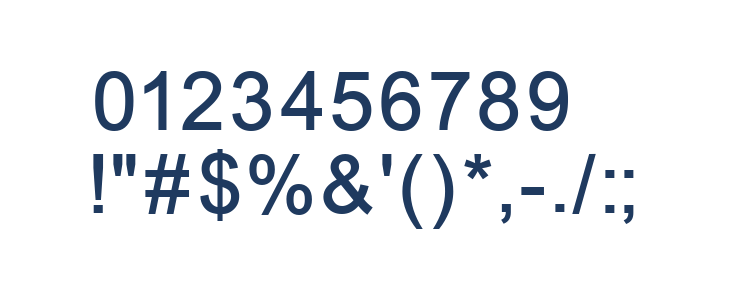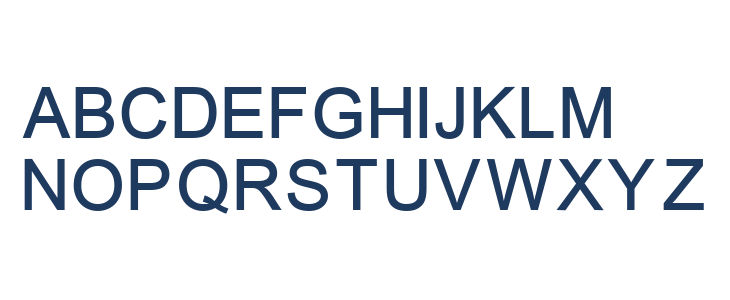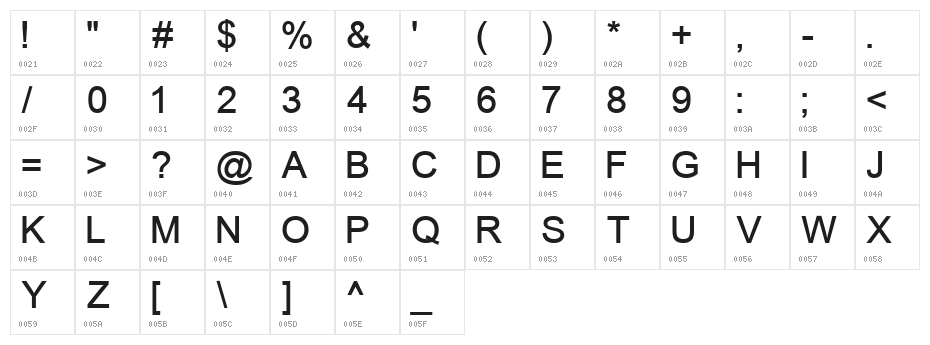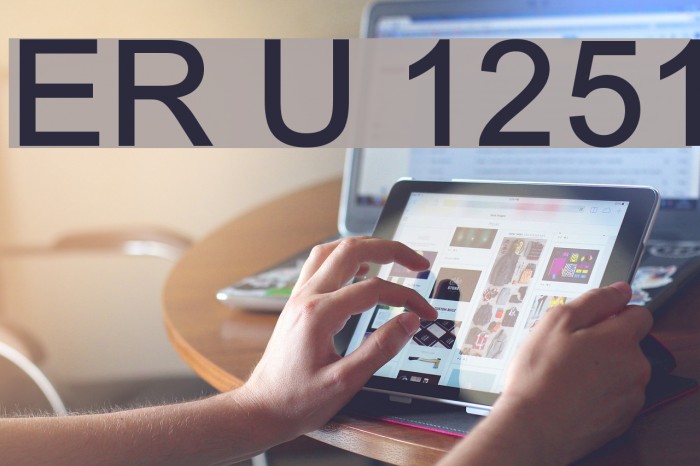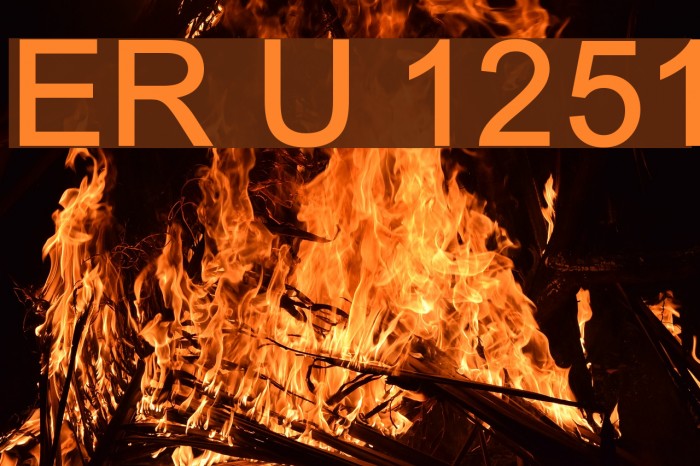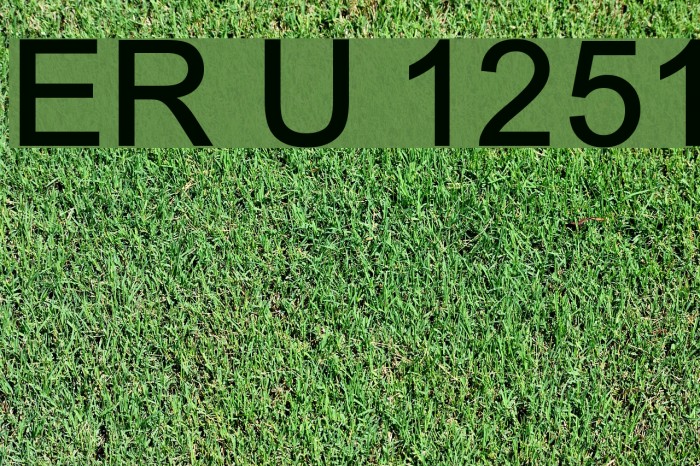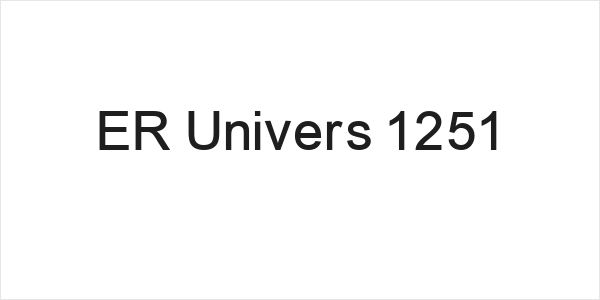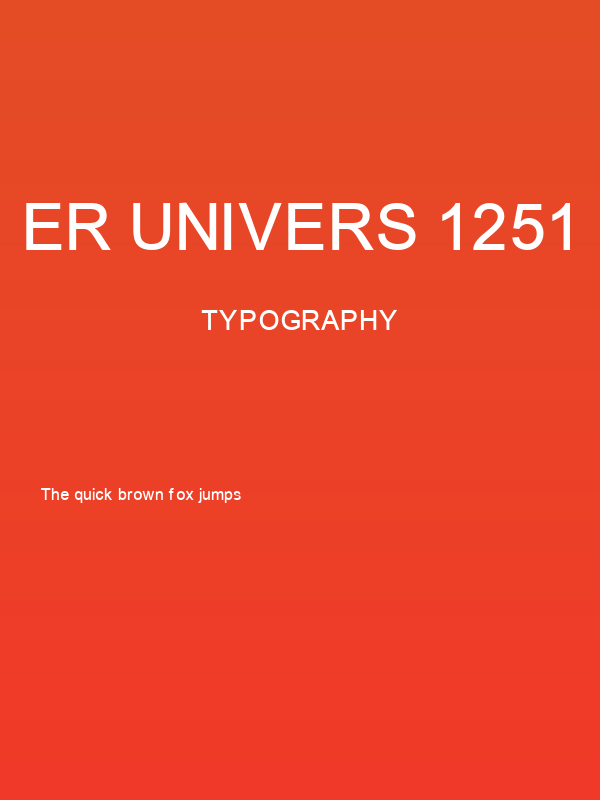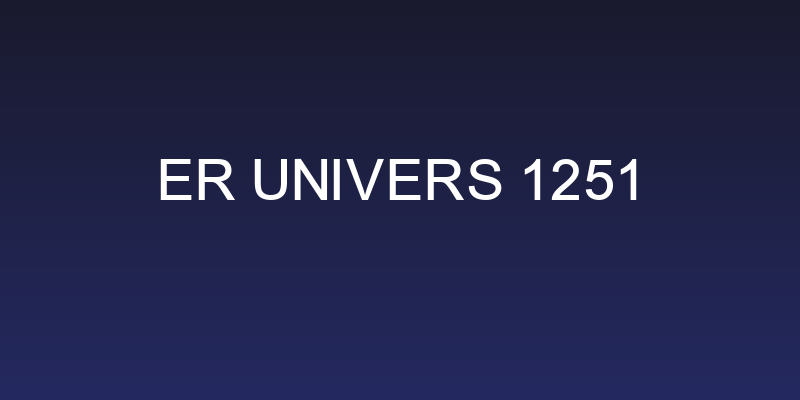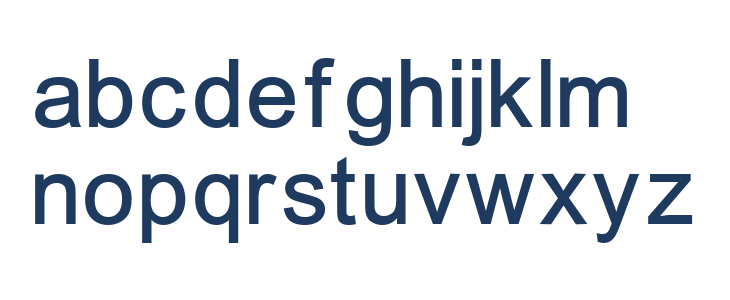
ER Univers 1251 Font
ER Univers 1251 Description
This font features a clean and modern sans-serif design, characterized by its uniform stroke width and geometric shapes. The uppercase letters are bold and assertive, while the lowercase letters maintain a balanced and approachable appearance. The numerals are clear and easy to read, making them suitable for various applications. The special characters are well-integrated, ensuring consistency across different uses. Overall, this font exudes a professional and contemporary vibe, making it versatile for both digital and print media.